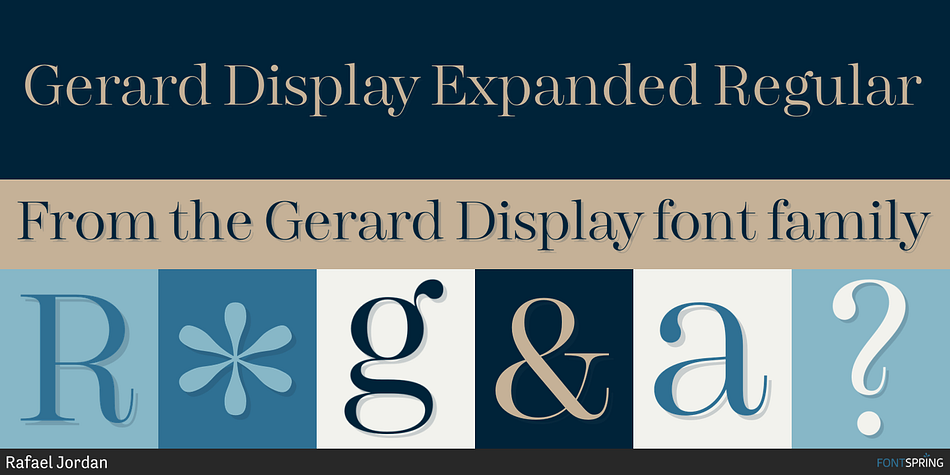
Gerard Display Expanded Regular
Designed by Rafael Jordan, Gerard Display is a serif font family. This typeface has thirty-six styles and was published by Rafael Jordan.
Clean, elegant & flexible…
Gerard Display is a beautiful rational typeface, a Scotch Roman dressed up as a high-contrasted Didot for this optical size. Its 6 weights and 6 widths made it adaptable and versatile with 36 fonts, from a solid “Compressed Regular” to a broader “ExtraExpanded Heavy” without losing a bit of grace.
Gerard Display counts on an extended character set that covers a wide range of Latin languages and a lot of features (as stylistic sets, local forms, or a complete set of figures).